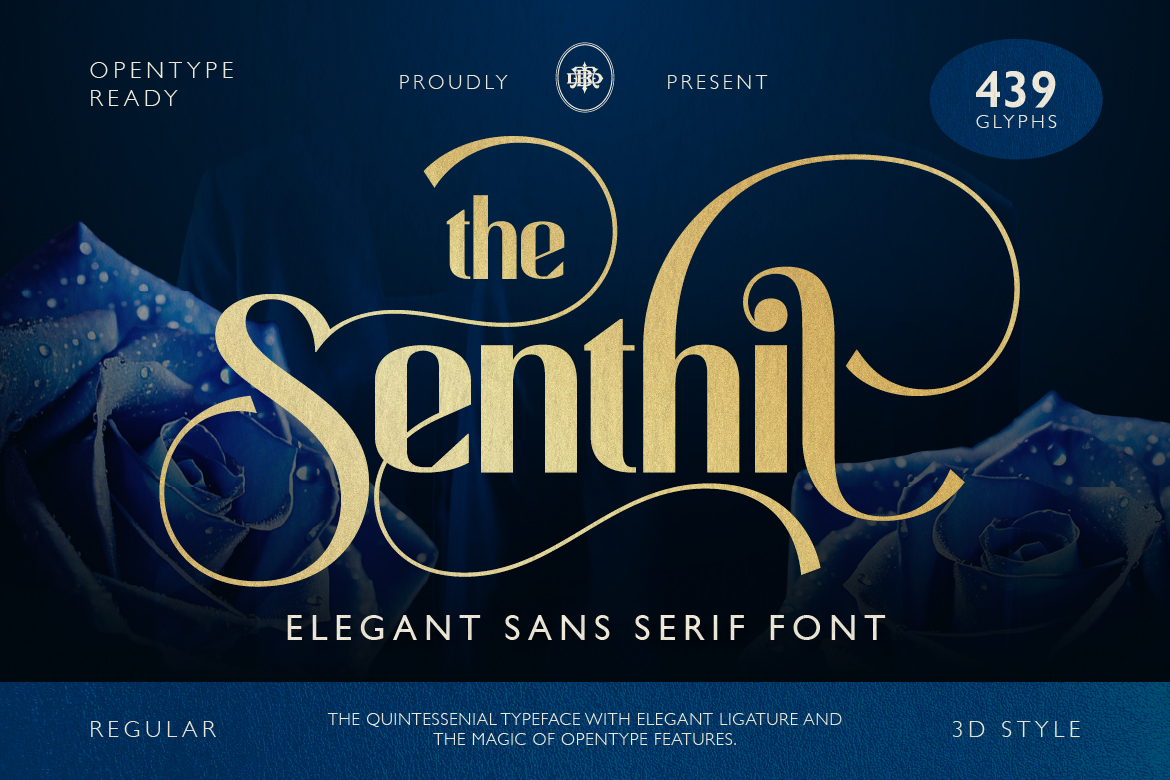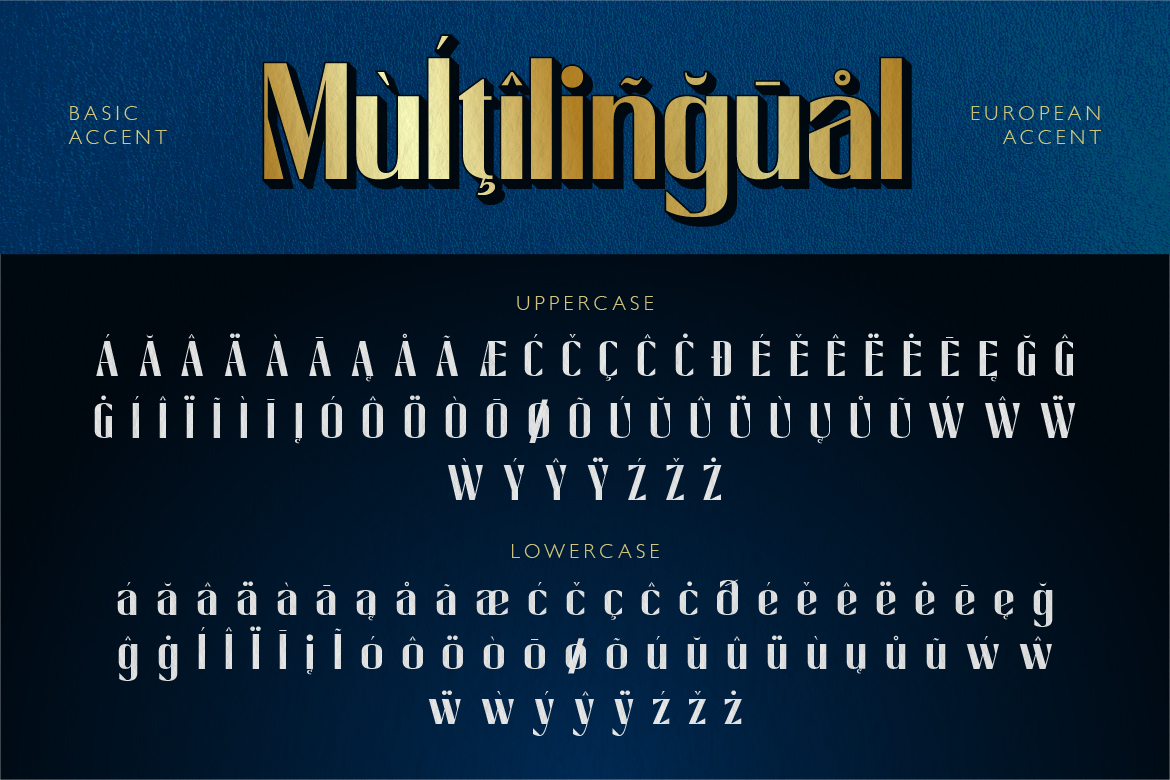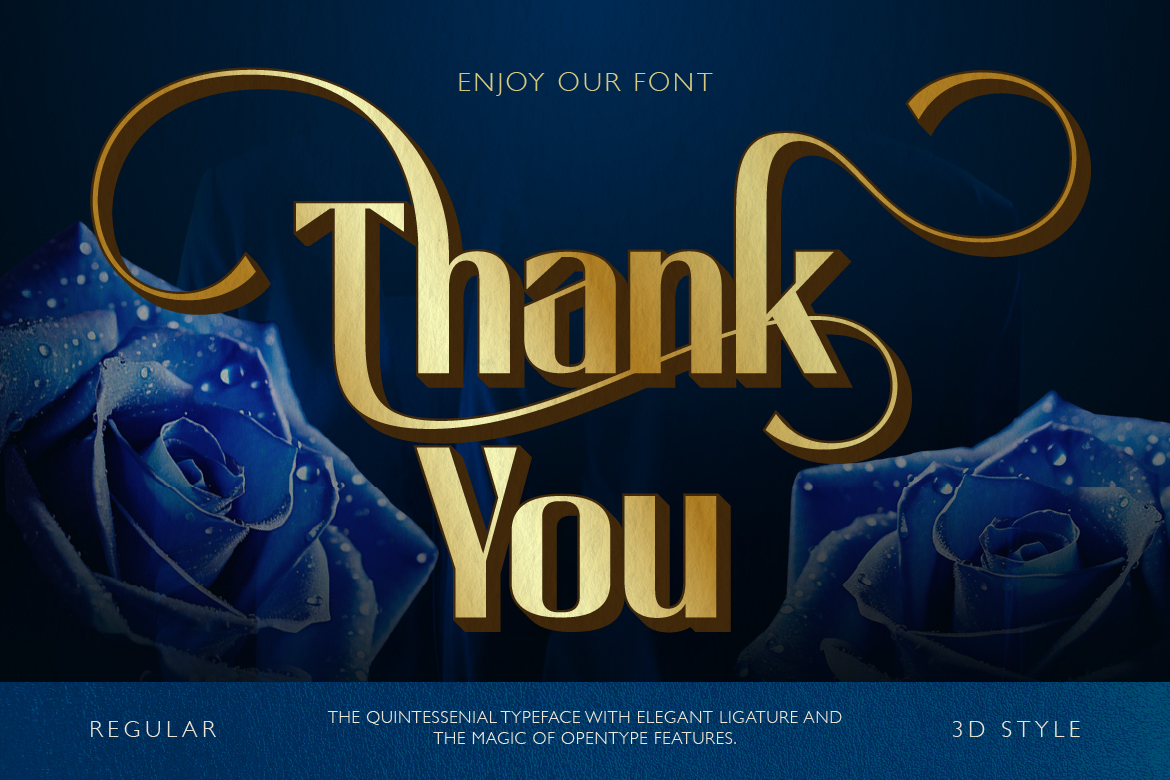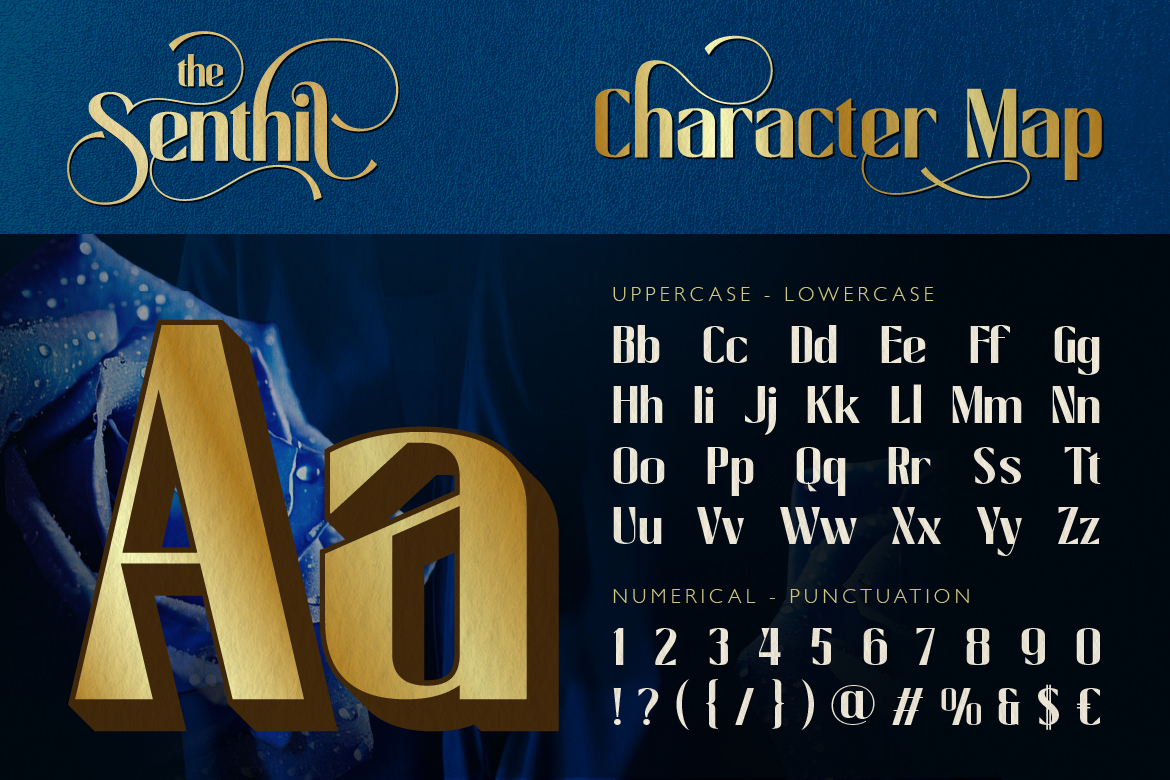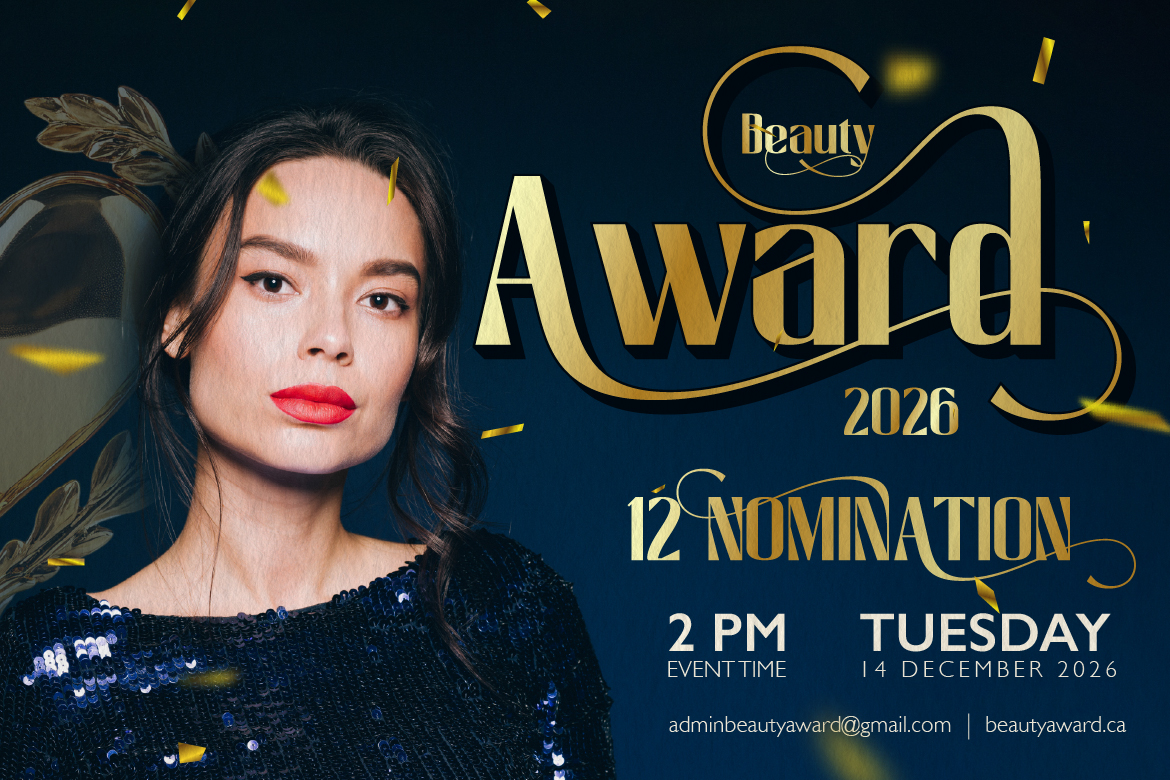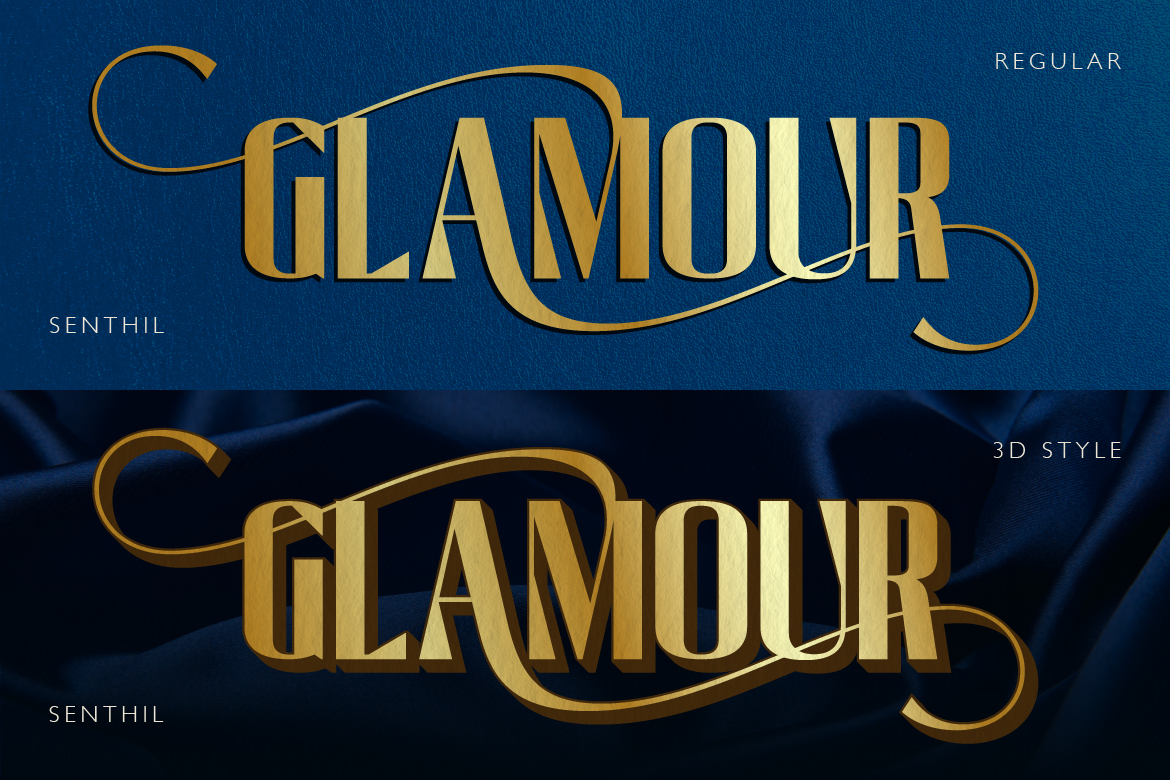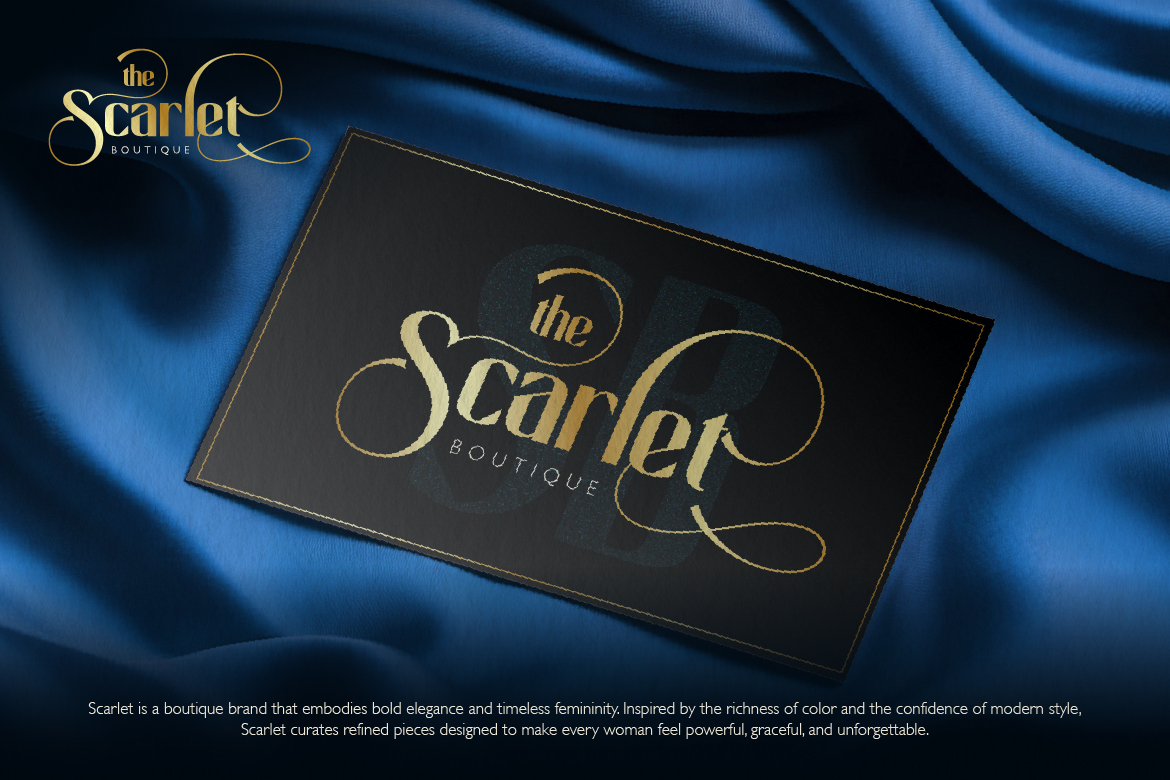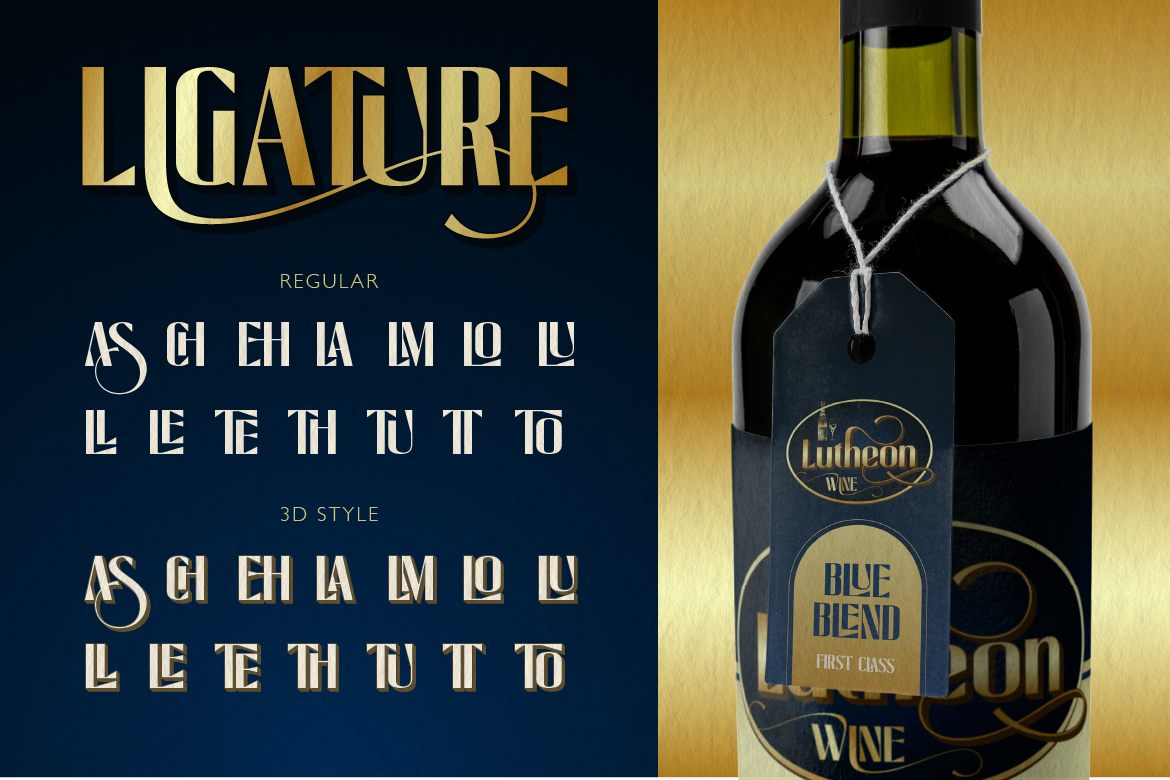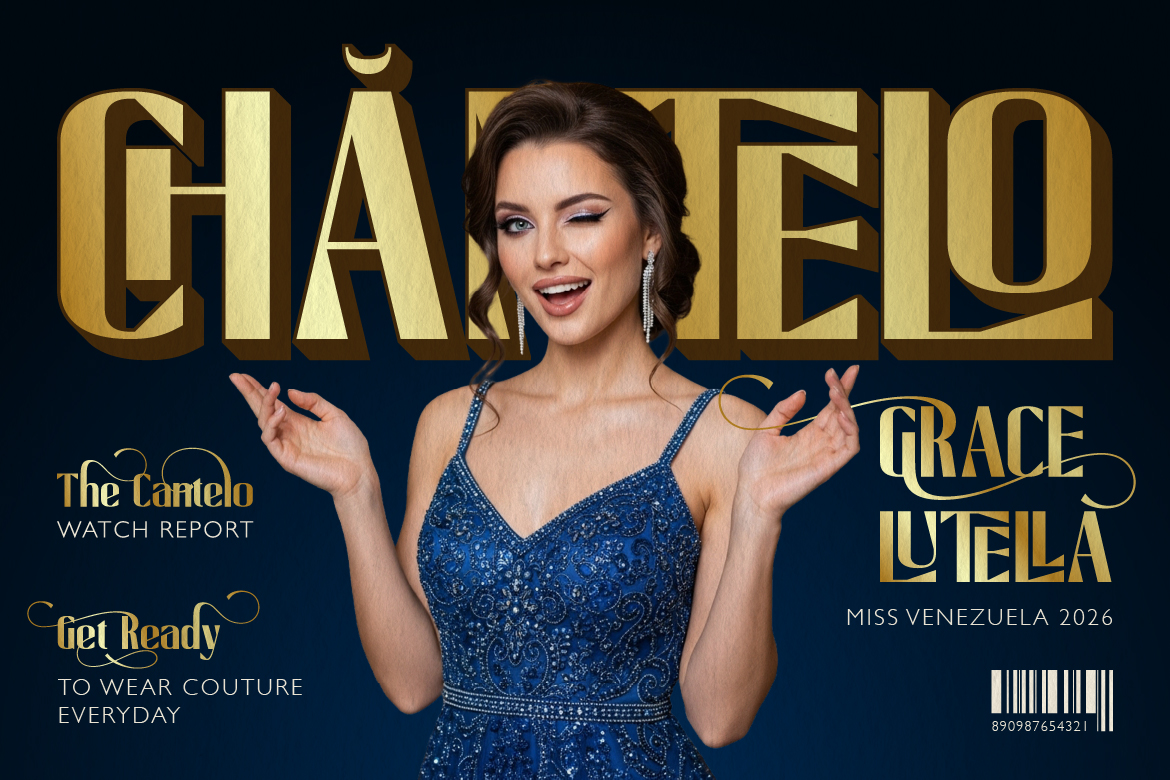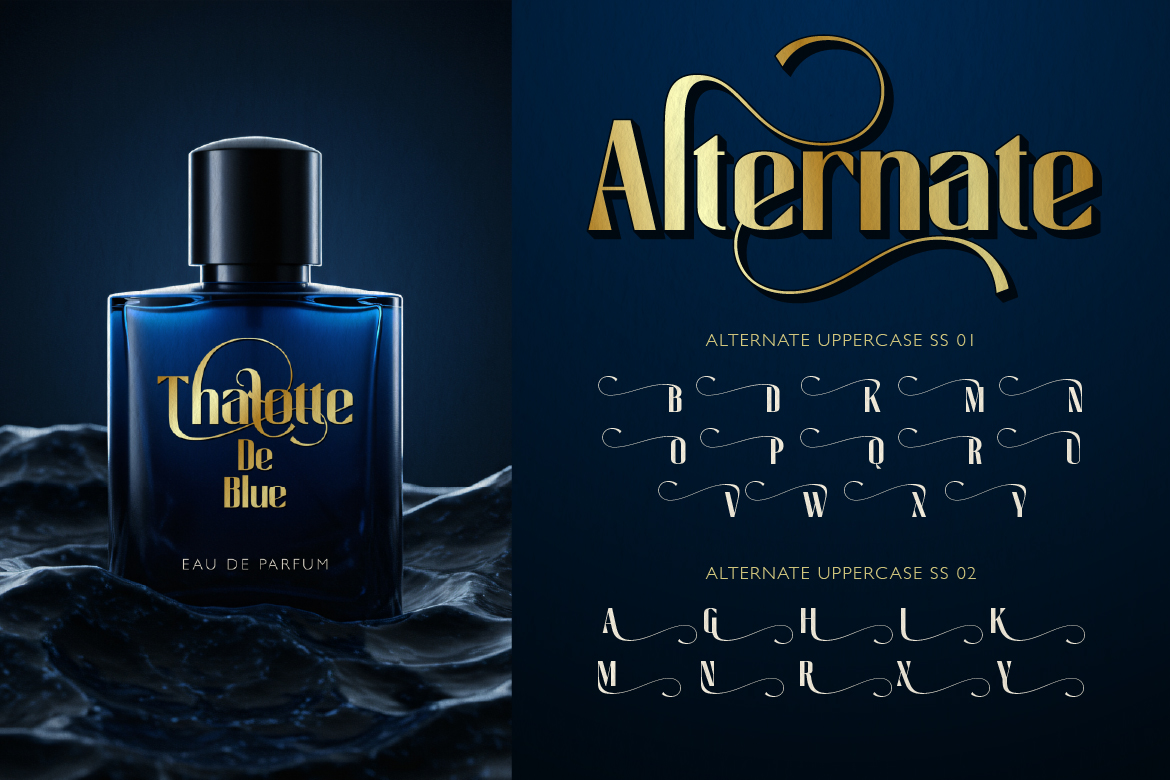
- Senthil
Senthil is a modern elegant sans serif font designed to bring a luxurious and high-end feel to your projects. It combines clean letterforms with beautiful flowing swashes, creating a perfect balance between classy and bold.
This font is made for designers who want something sophisticated but still powerful. The smooth curves and stylish ligatures give your typography a premium, editorial look, perfect for branding, beauty campaigns, packaging, and glamorous events.
You can use the regular style for a clean luxury look, or apply the 3D style to create dramatic and eye-catching designs.
Perfect for:
- Luxury branding
- Beauty & fashion campaigns
- Perfume & cosmetic packaging
- Award event posters
- Editorial design
- High-end logo design
- Social media graphics
- Wedding invitations
If you’re looking for a font that feels glamorous, confident, and timeless — Senthil is the perfect choice.